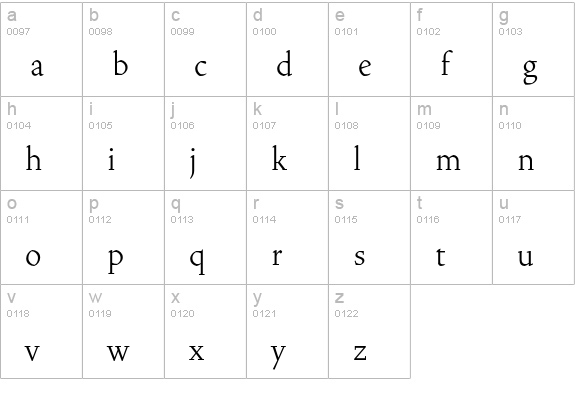
VendettaLight font is a striking and modern typeface that exudes elegance and sophistication. With its clean lines and subtle curves, this font is perfect for adding a touch of refinement to any design project. What sets VendettaLight font apart is that it is not only visually stunning, but it is also available for free. Yes, you heard that right! This incredible font can be downloaded at absolutely no cost from FontsMarket.com. Whether you're designing a logo, creating a stylish poster, or crafting a beautiful website, VendettaLight font will elevate your work to new heights. Its sleek and polished appearance adds a sense of professionalism, making it the ideal choice for any project that requires a touch of class. With VendettaLight font, you'll have access to a wide range of characters and glyphs, allowing you to create striking and unique designs. Its versatility makes it suitable for both headlines and body text, ensuring that your message is conveyed with clarity and style. So why wait? Download VendettaLight font today and unlock a world of creative possibilities. With its free availability at FontsMarket.com, you can start using this incredible font right away, without breaking the bank. Don't miss out on the opportunity to add a touch of sophistication and elegance to your designs. Get VendettaLight font and let your creativity shine!